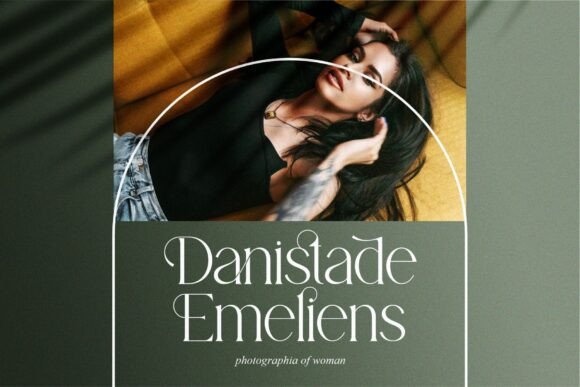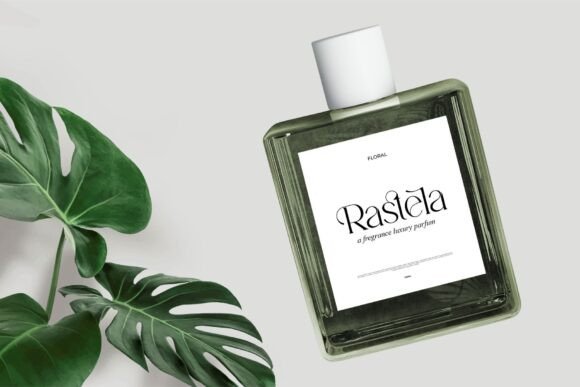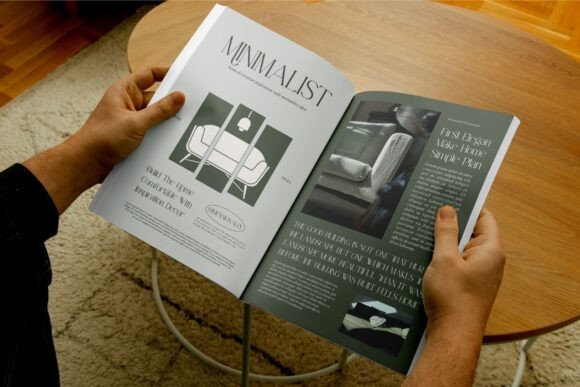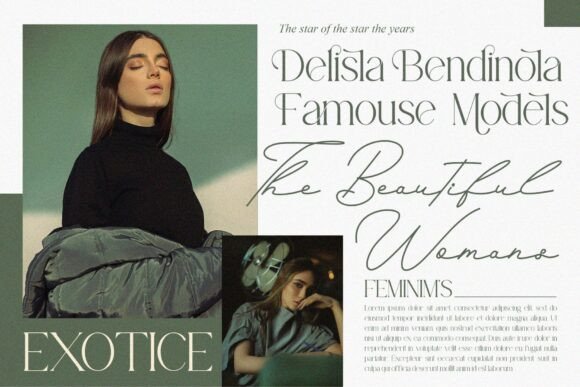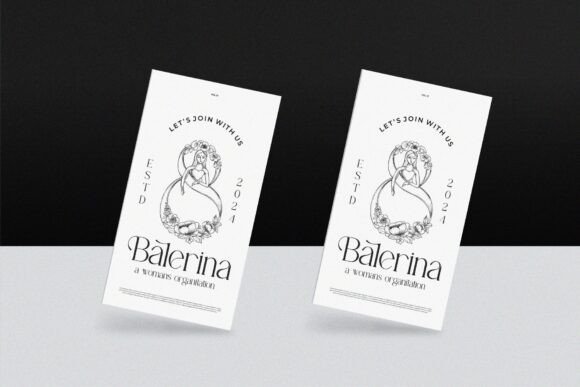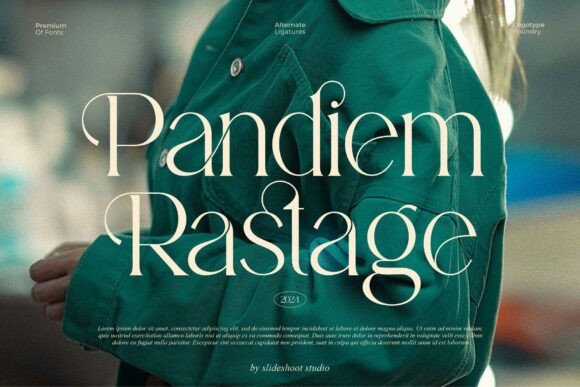
The Fantia Font: A Modern Serif for Sophisticated Designs
I’ll never forget the time I was working on a logo design project for a high-end fashion brand. I had spent hours brainstorming ideas, sketching out concepts, and refining my designs. But something was missing – the perfect font. That’s when I stumbled upon Fantia Serif, a modern and classy font that instantly elevated my designs. In this article, I’ll share my experience with Fantia Serif, its features, and how to make the most of it in your designs.
An Honest Review of Fantia Serif
Fantia Serif is a smooth serif font that exudes sophistication and elegance. Here are some things I love about it:
- ✨ Beautiful character: Fantia Serif has a unique and stylish character that sets it apart from other serif fonts.
- ✅ Smooth lines: The font’s smooth lines and curves make it perfect for high-end designs.
- ✅ Stylish alternates: Fantia Serif comes with stylish alternates and ligatures that add a touch of elegance to your designs.
However, there are a few quirks to be aware of:
- 🤔 Limited use in body text: While Fantia Serif is perfect for headings and titles, it may not be the best choice for body text due to its elegant and refined nature.
A Practical Guide to Using Fantia Serif
Now that we’ve covered the basics, let’s dive into how to use Fantia Serif in your designs.
The Story Behind Fantia Serif
Fantia Serif was designed with the goal of creating a modern and elegant serif font that would meet the needs of designers and crafters. The font’s creator drew inspiration from classic serif fonts, while incorporating modern elements to make it fresh and unique.
| Font Name | Fantia Font |
| Author | Idea Studio |
| What is Fantia Serif? | Fantia Serif is a modern and classy serif font designed for high-end designs. |
| Is Fantia Serif suitable for body text? | While Fantia Serif is perfect for headings and titles, it may not be the best choice for body text due to its elegant and refined nature. |